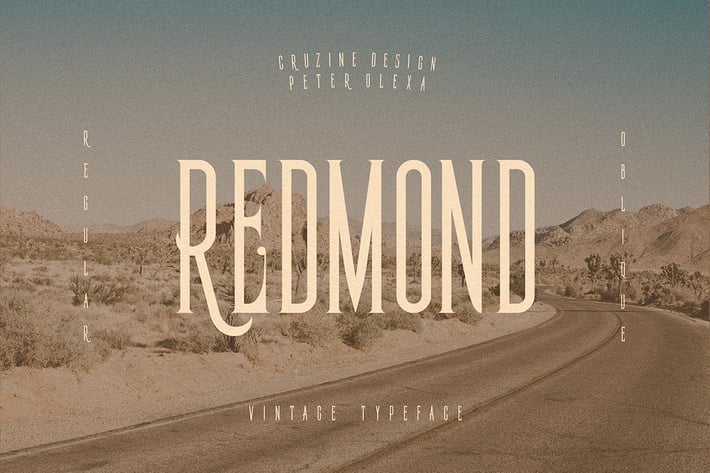
Redmond Vintage Condensed Font
Unique condensed, vintage & decorative serif font. Comes with multilingual support & ligatures - great for your new logo or branding project.
- Regular & Italic
- Multilingual support
- Great for retro or vintage style branding projects